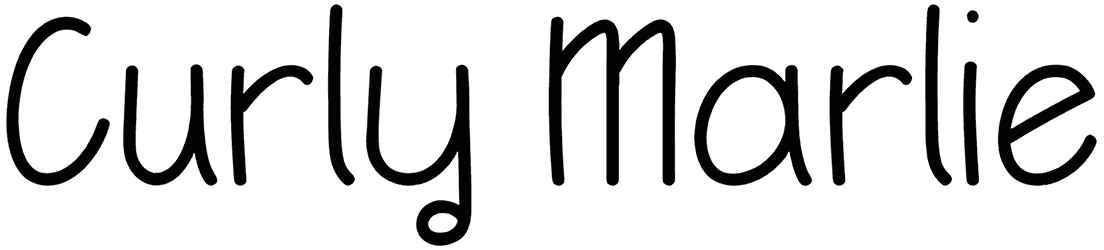
Curly Marlie Font
Ready for taking a short trip to make a playful moment with this script font? Curly Marlie font has a winsome, fun design that creates a special mood on a modest background. Later, you will figure out how it can be genui…
Ready for taking a short trip to make a playful moment with this script font? Curly Marlie font has a winsome, fun design that creates a special mood on a modest background. Later, you will figure out how it can be genuine effortlessly.
Your project will get this elegant, detailed, and bold look with a simple copy and paste. Achieve the look of a future that never existed, and download this handwritten font from your very own Resource Boy.